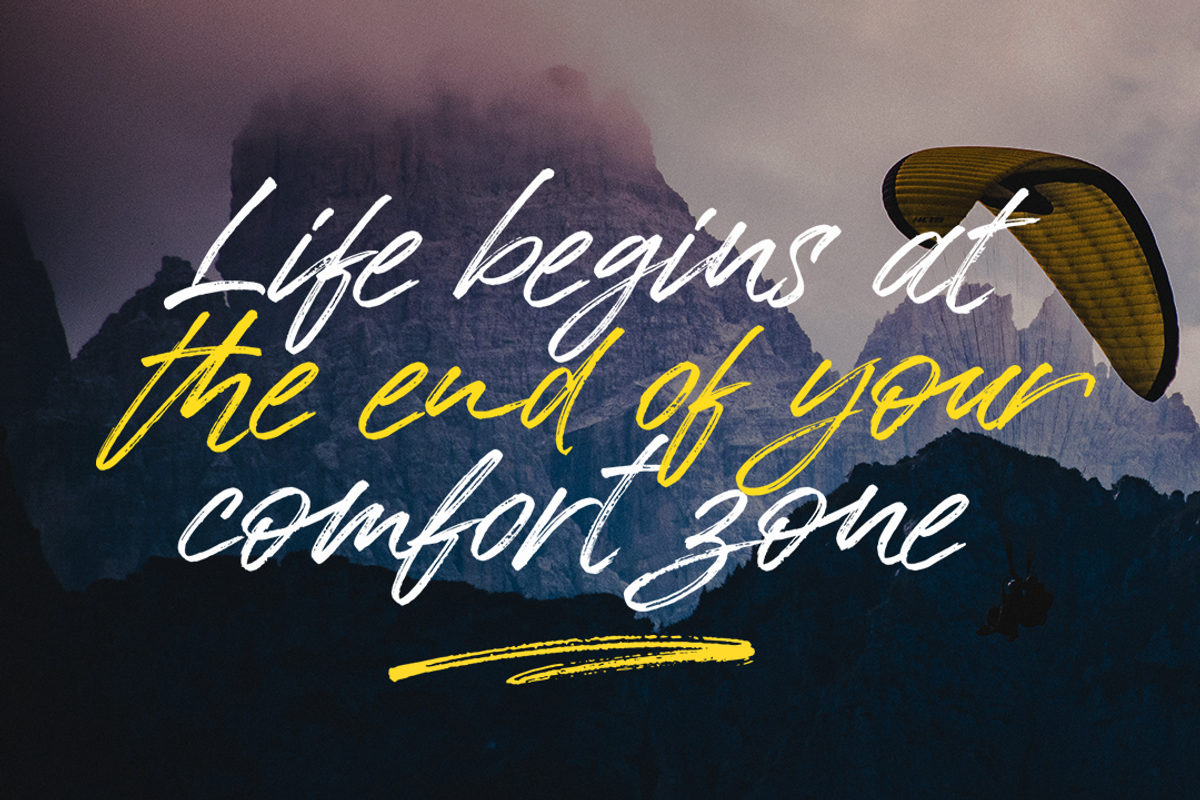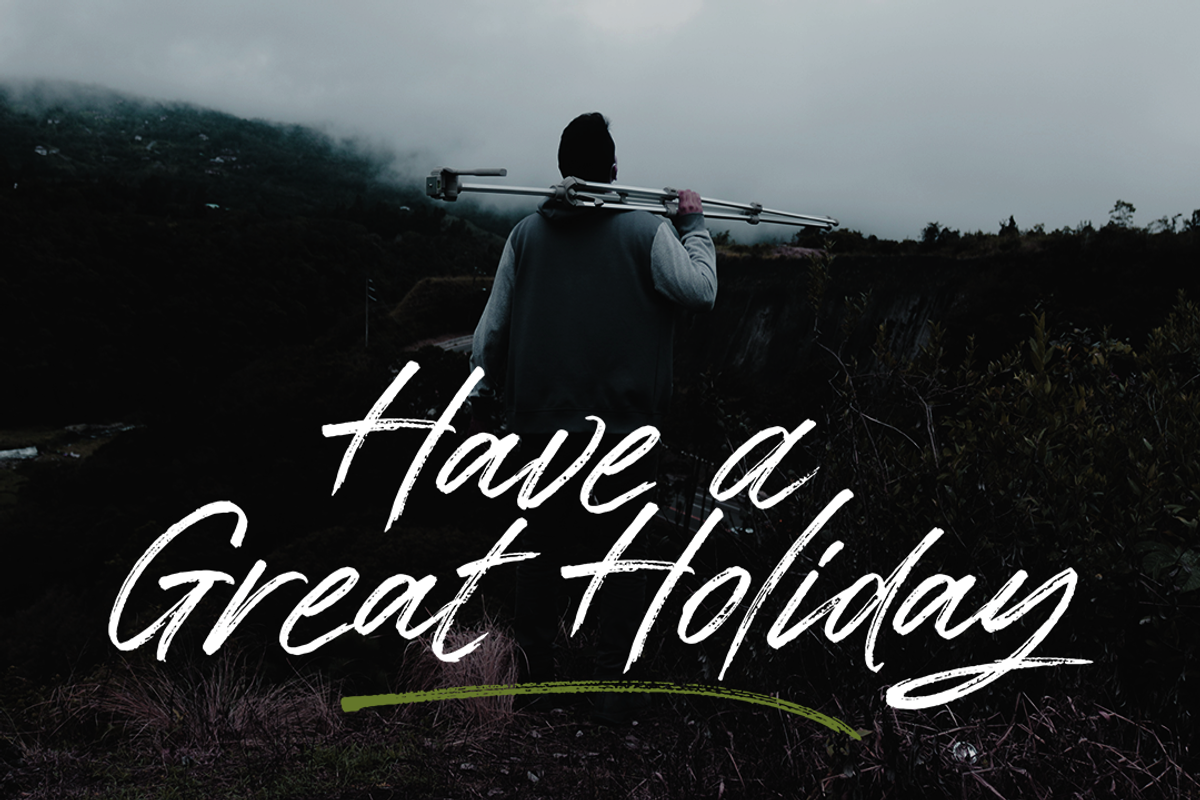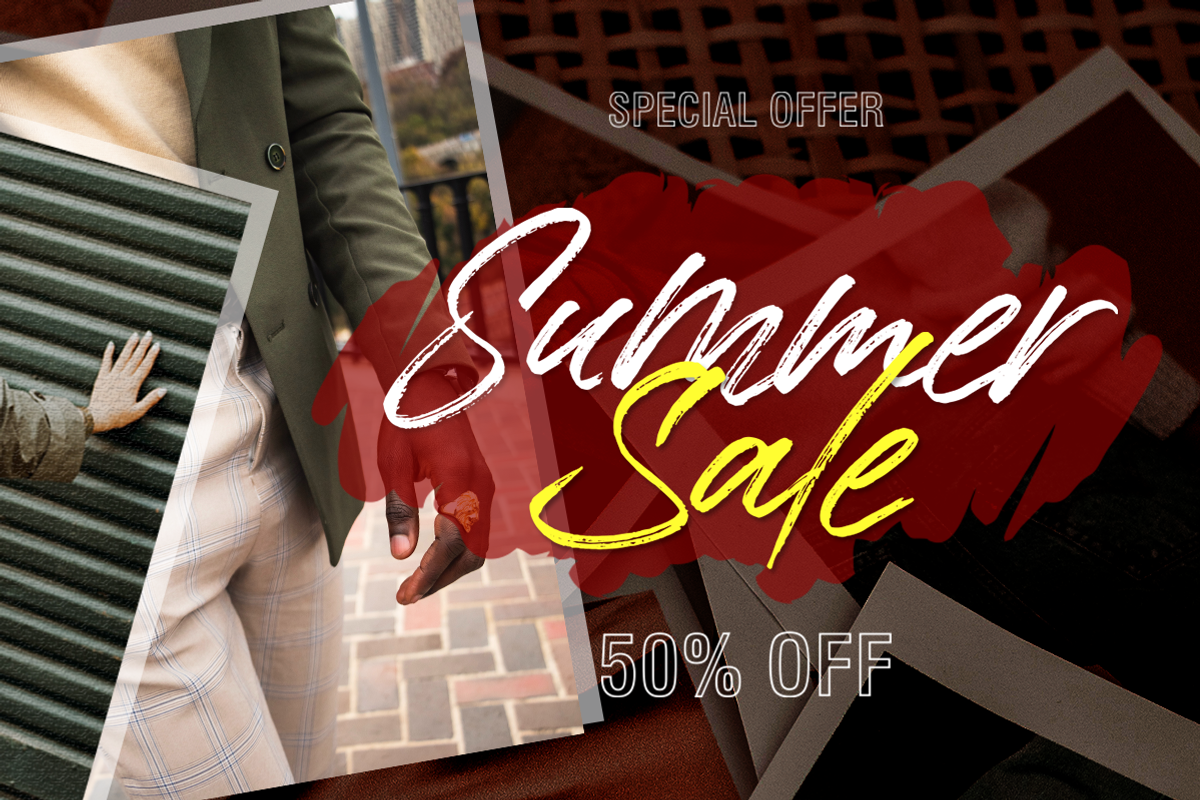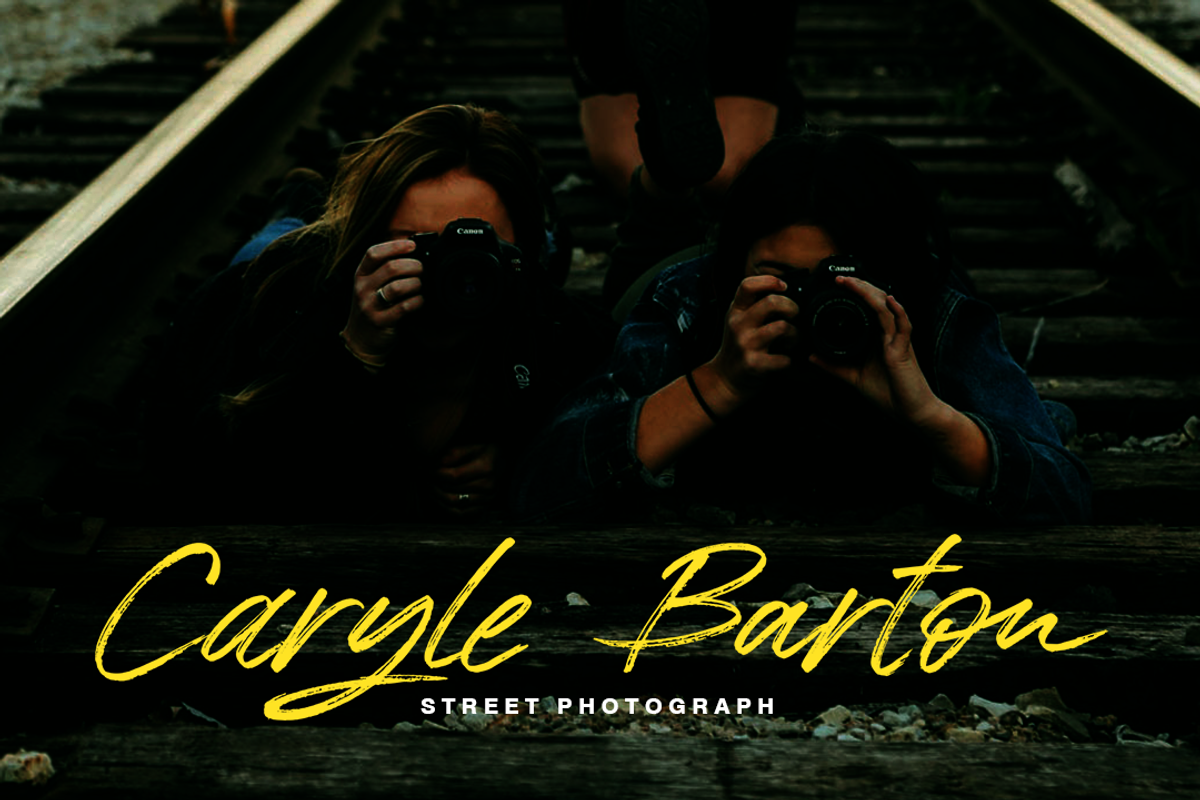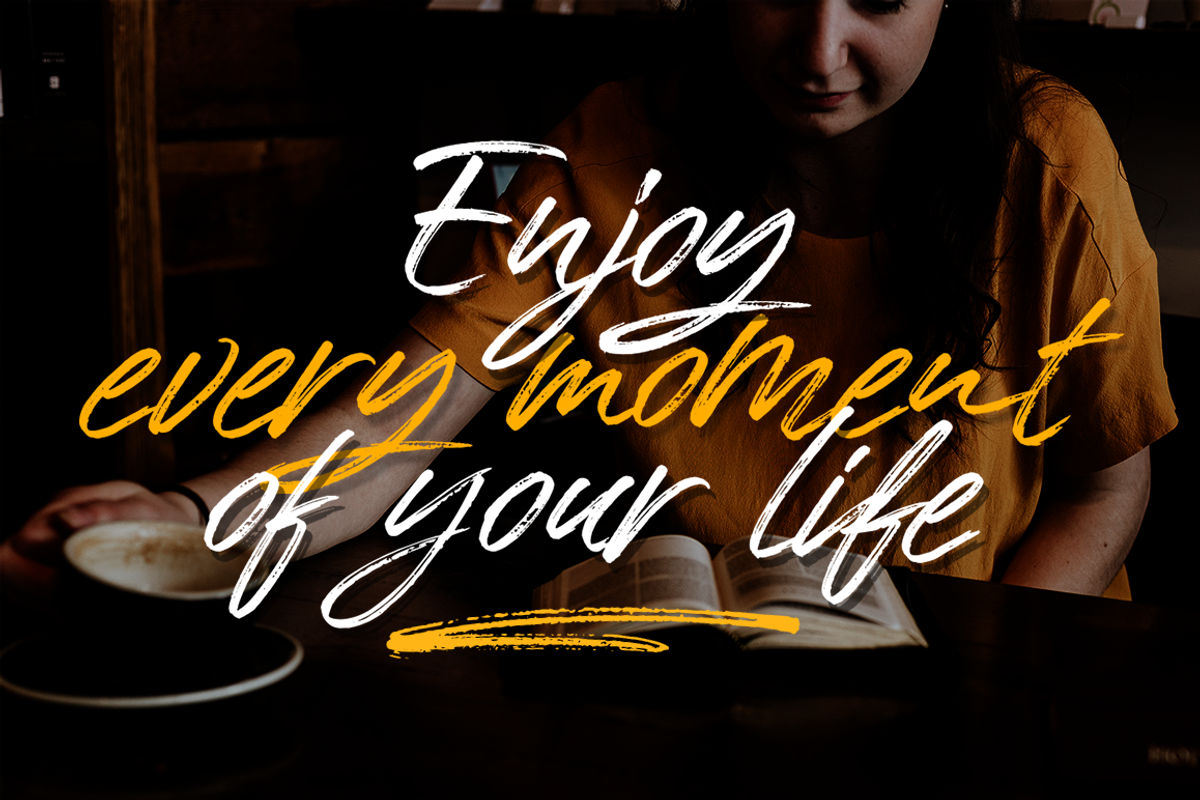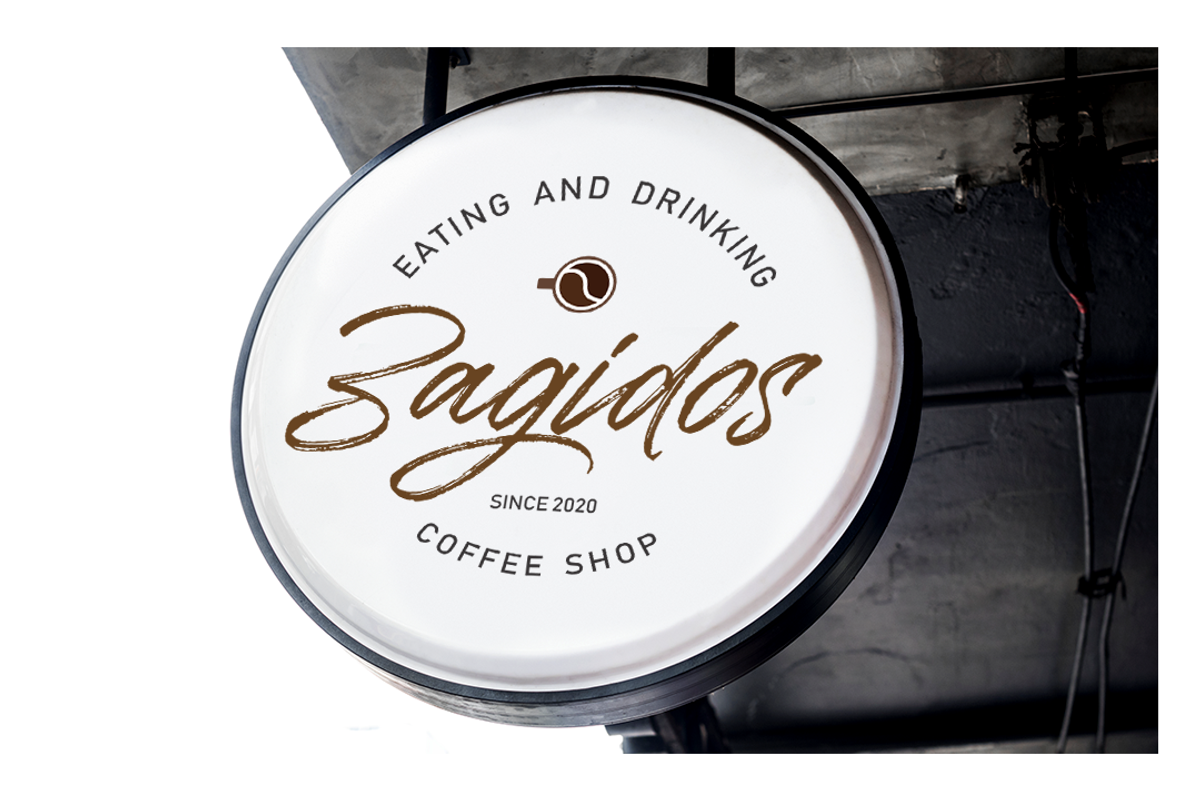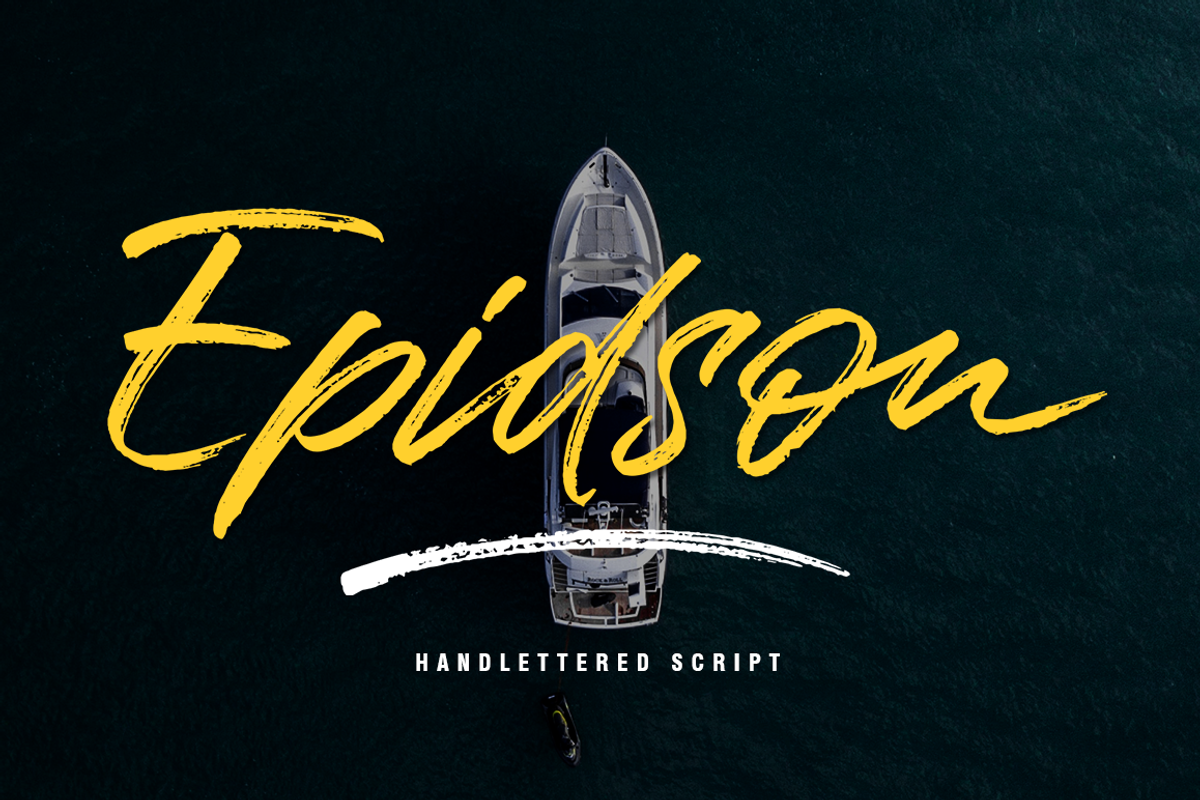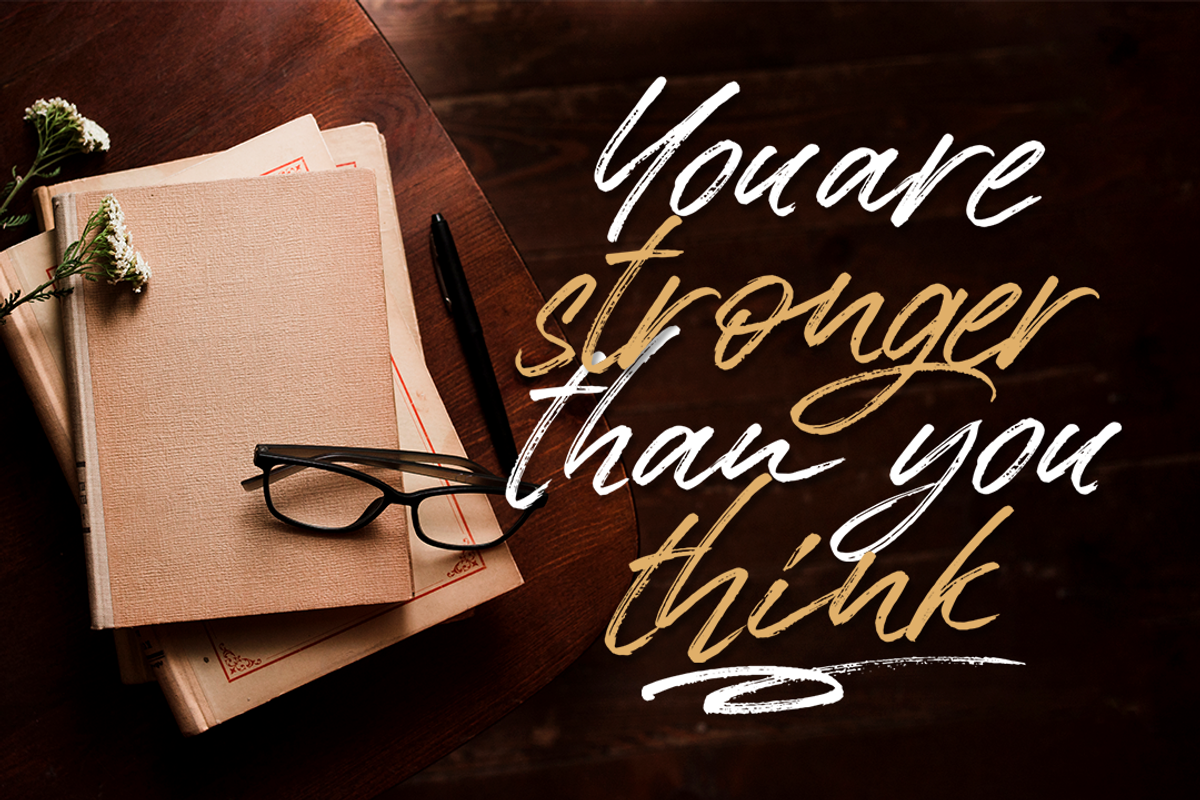
Epidson Font
Epidson is a rough brush script font with a clear style and dramatic movement This font is great for your next creative project such as logos, printed quotes, invitations, cards, product packaging, headers, logos, letterheads, posters, clothing designs, labels, and so. Epidson has multi-language support, numbers, punctuation and also provides some extra ligature and swash.
- Epidson has multi-language support, numbers, punctuation and also provides some extra ligature and swash.
Why Epidson Font is worth a look
Epidson Font by Lettersams fits naturally into Branding, posters, packaging, typography.